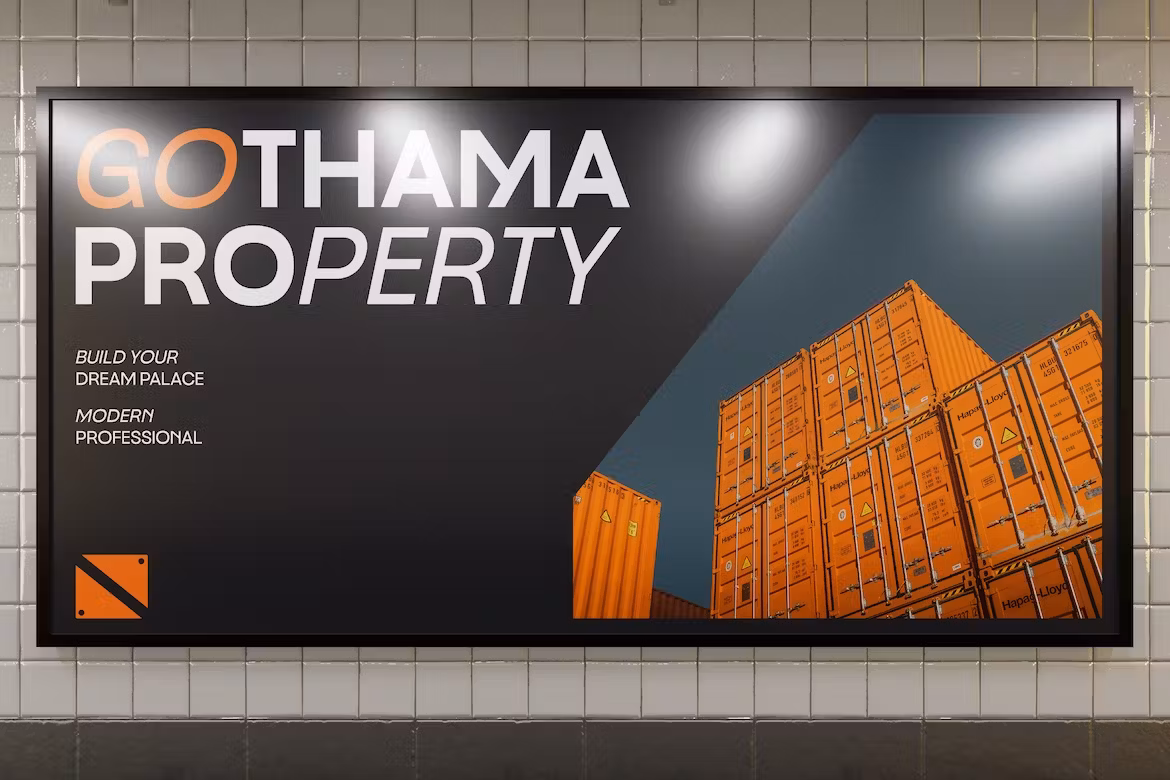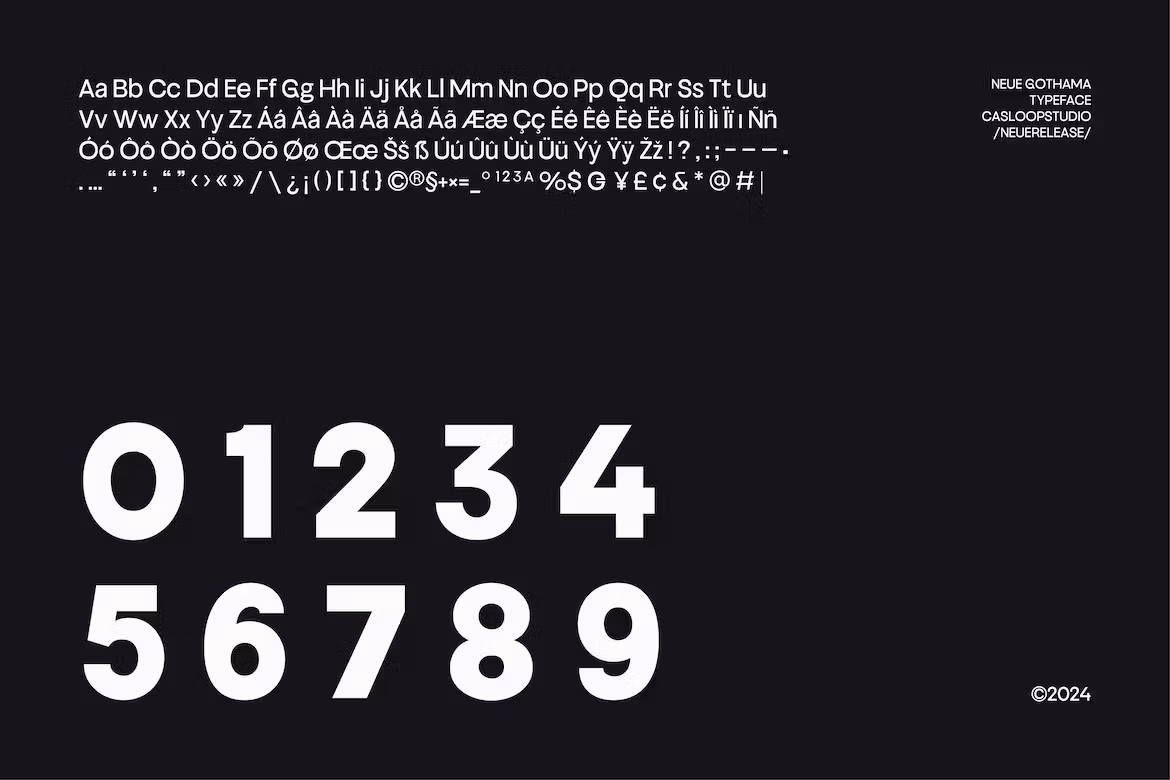
Neue Gothama Font
Neue Gothama is sans serif geometric type and, being a mix of humanist and neogothic typeface, this font is suitable for any further level design. They have a clean and contemporary appearance and in particular, the shapes of the 12 closedow distinct uppercase forms are distinct and its x-height is large hence making the content easily readable and communicative.
This fine font family includes the standard and italics versions and in light, book, middle, demi-bold, bold, black and the demi-black styles. The extremely refined and stylish lettering types appear to be quite innocent and rather provocative and are as well very suitable for the small size and are best suited for the corporate logo, product labeling, web designing logos, and the other symbolic representations in WWW.
Neue Gothama Sans Font Family